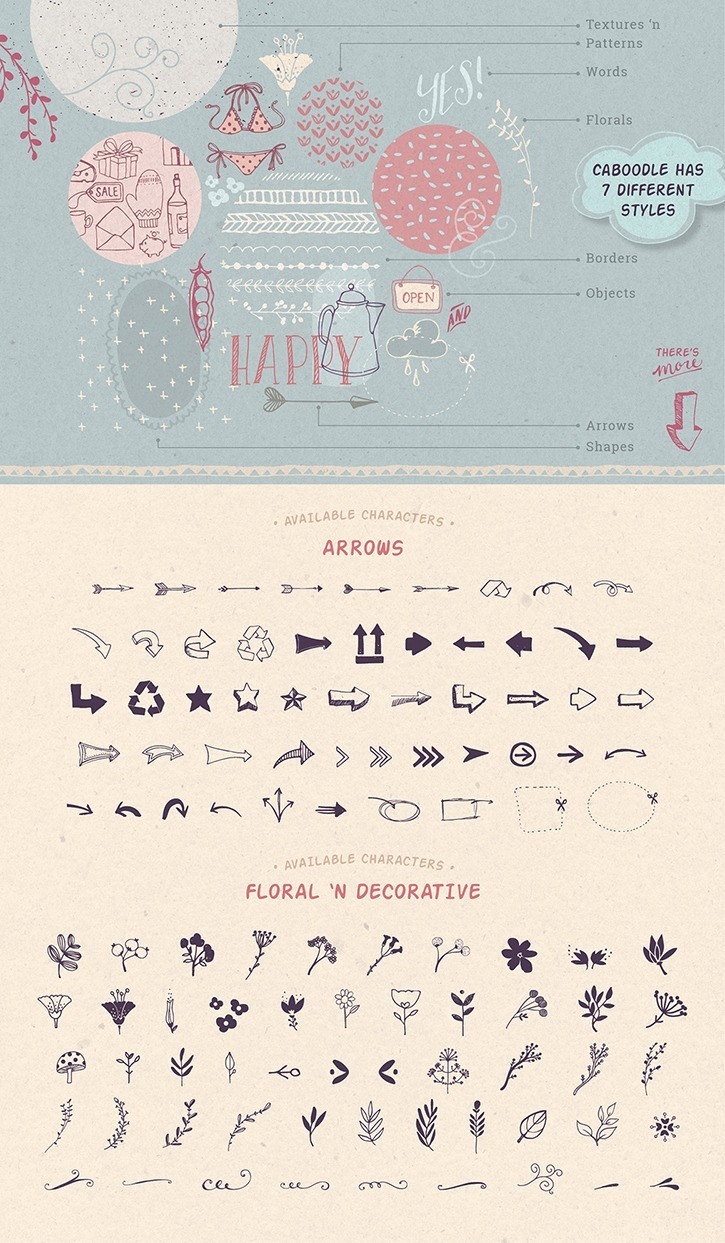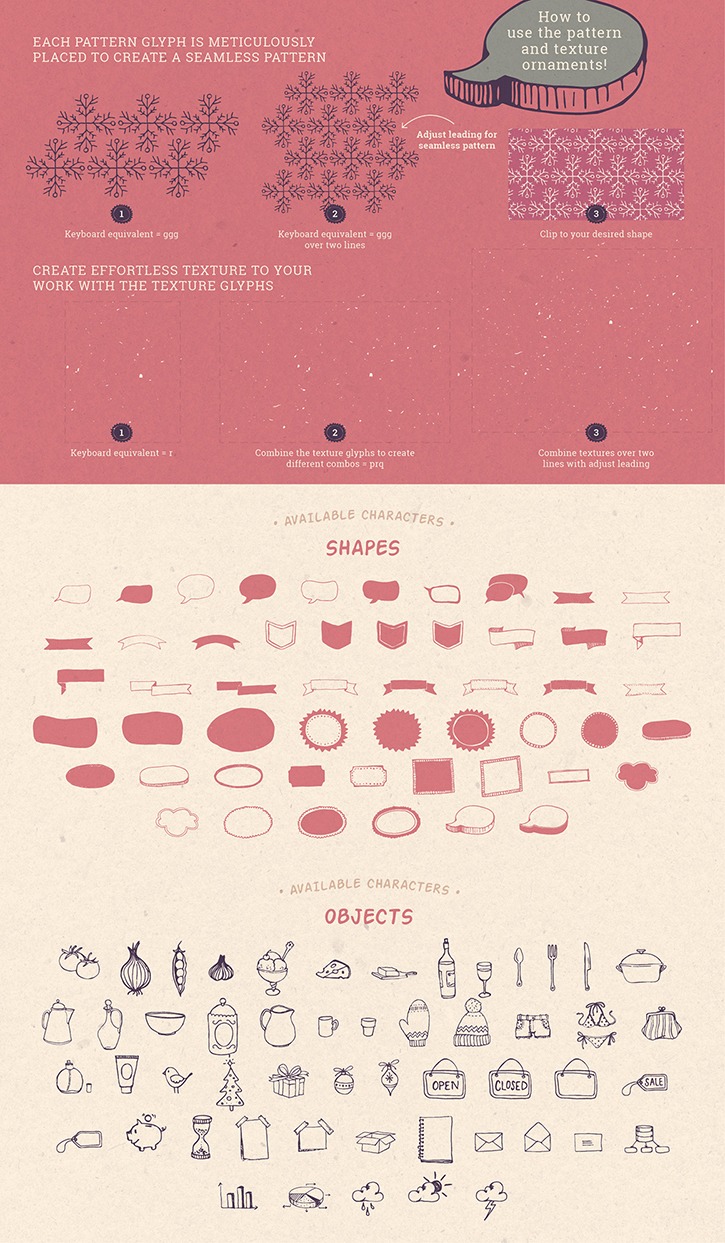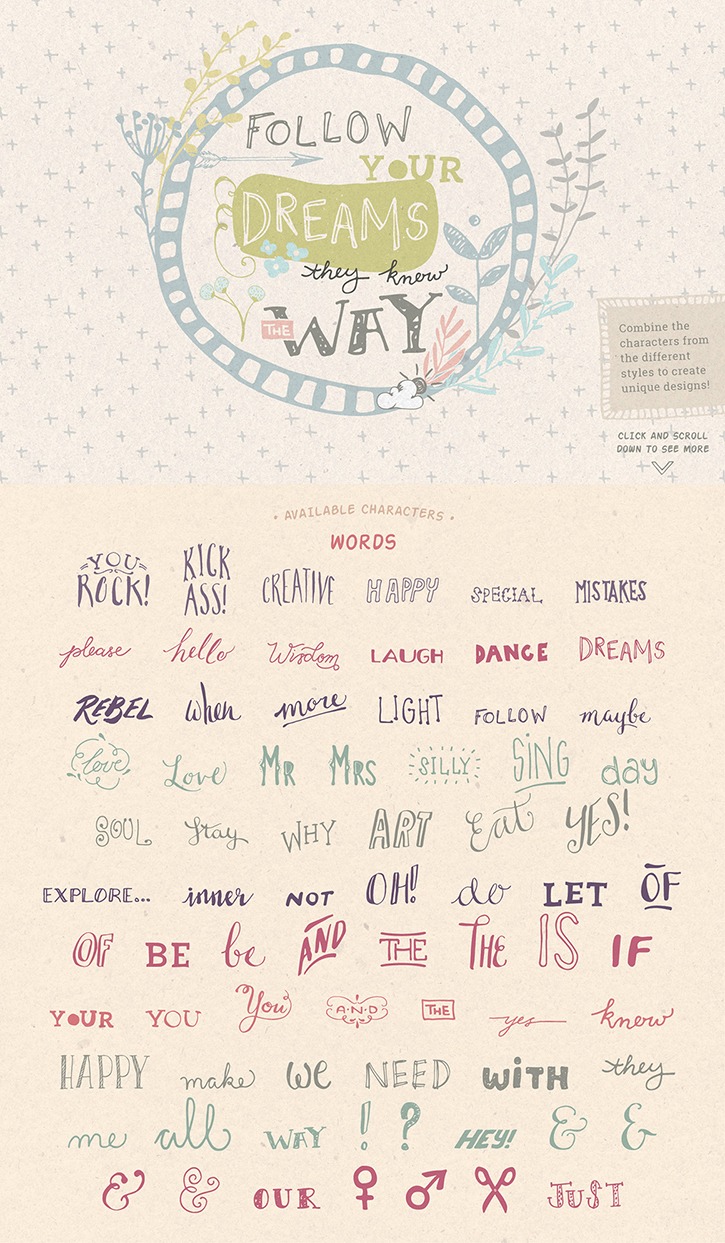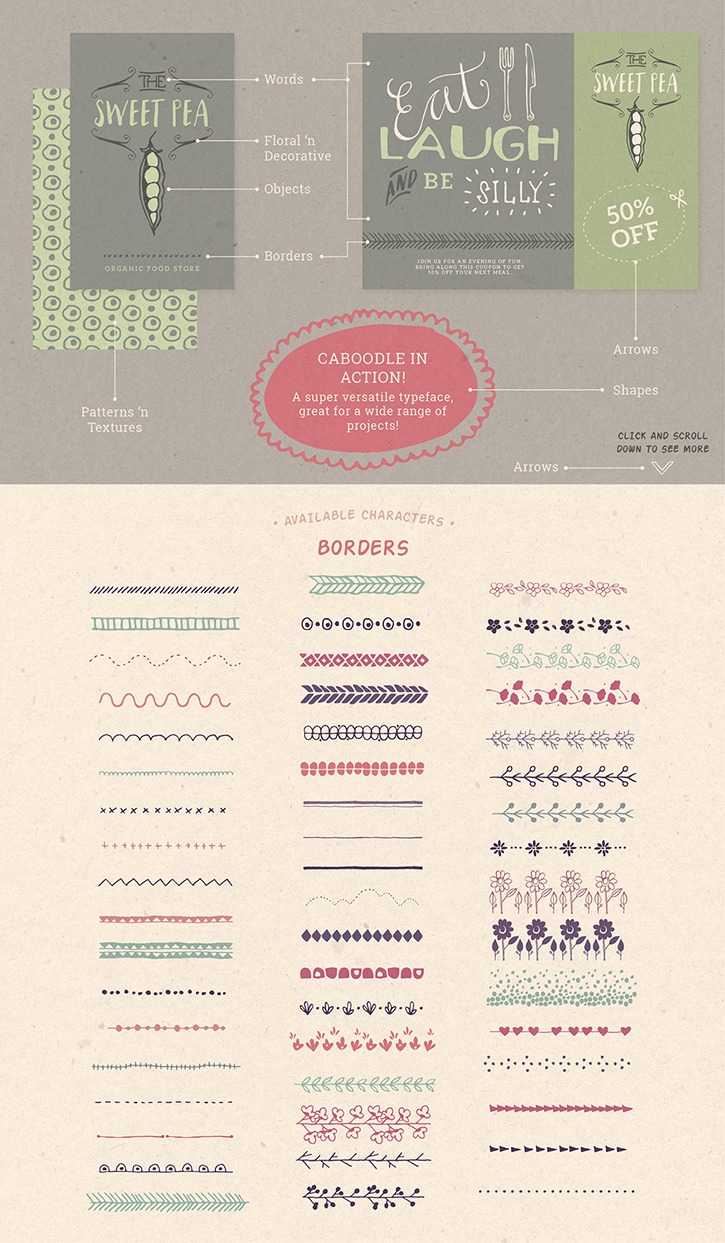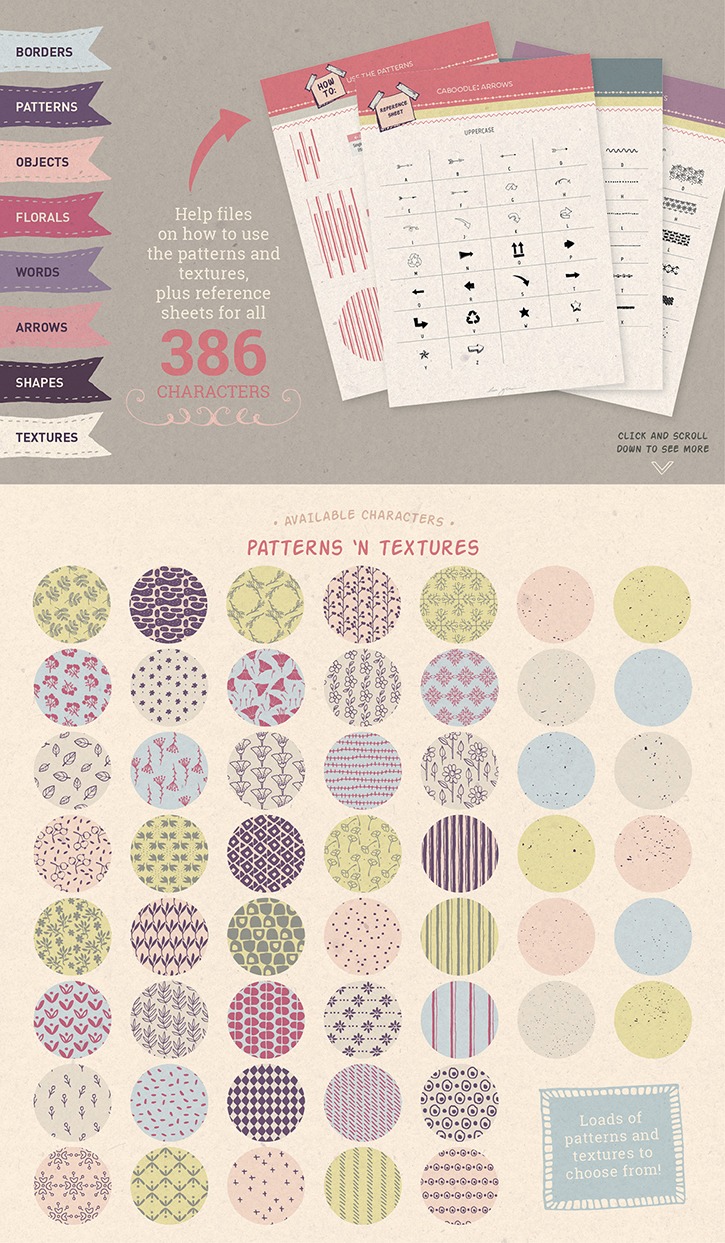
This is the whole Caboodle!
A dingbat and ornamental typeface with loads of goodies all stuffed into one handy font!
With over 380 glyph characters, this little gem will speed up your workflow and make a great addition to your design resources! Caboodle has 7 different styles with masses of items all lovingly created for that authentic hand drawn look.
I could list all the goodies, but the preview slides do a better job!
Caboodle dingbat typeface
A fun dingbat font filled with everything you need from borders, arrows, shapes, objects, patterns and more!
The 7 different styles included in this font are:
• Caboodle Arrows - always come in handy!
• Caboodle Borders - just repeat the keyboard equivalent to create your desired length
• Caboodle Objects - this-and-that to add a quick hand drawn illustration to your work
• Caboodle Floral 'n Decorative - can never have enough of those!
• Caboodle Shapes - pick your shape, add some text and voila!
• Caboodle Patterns 'n Textures - spice up your design backgrounds
• Caboodle Words - quickly create a hand lettered look